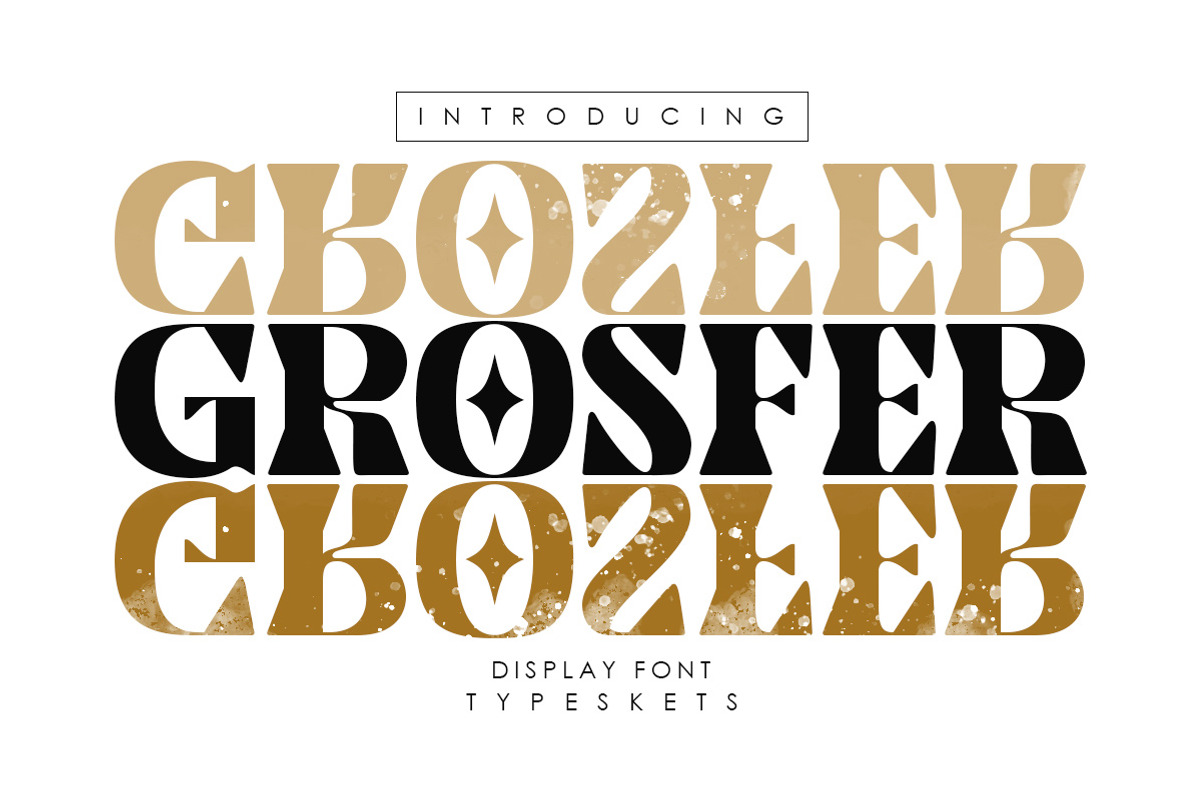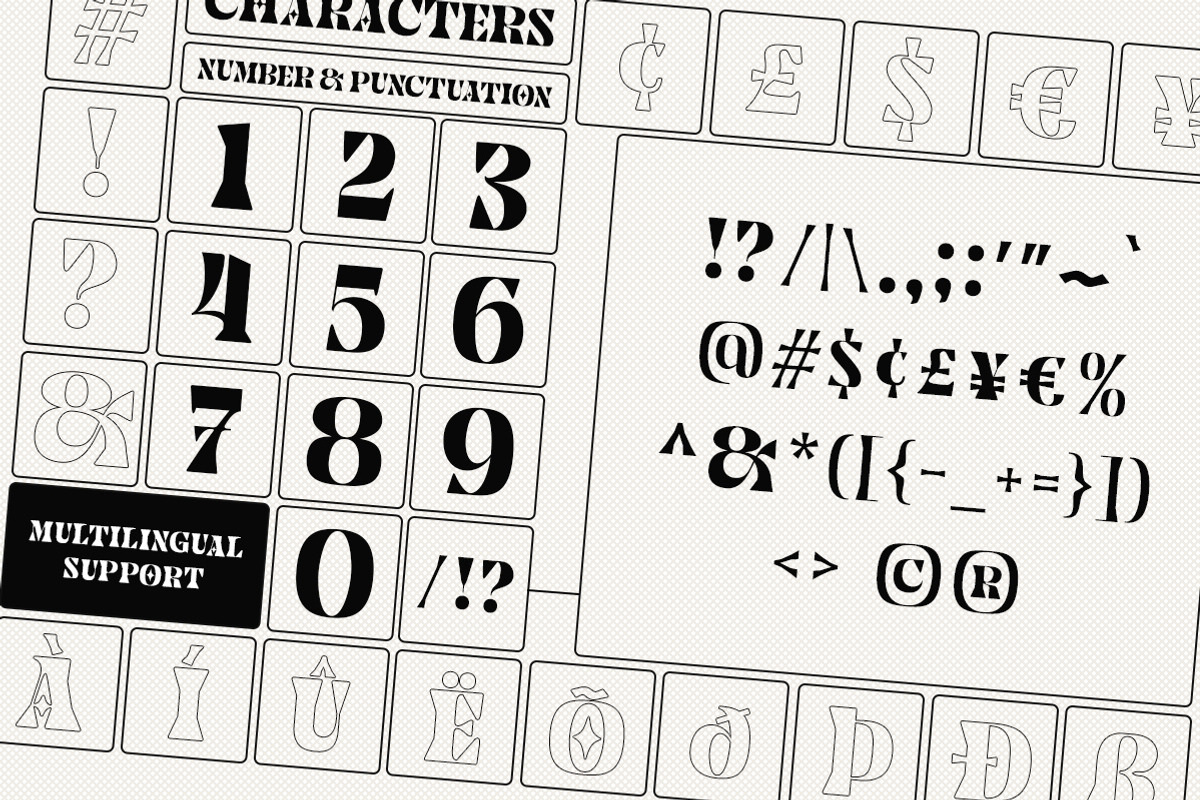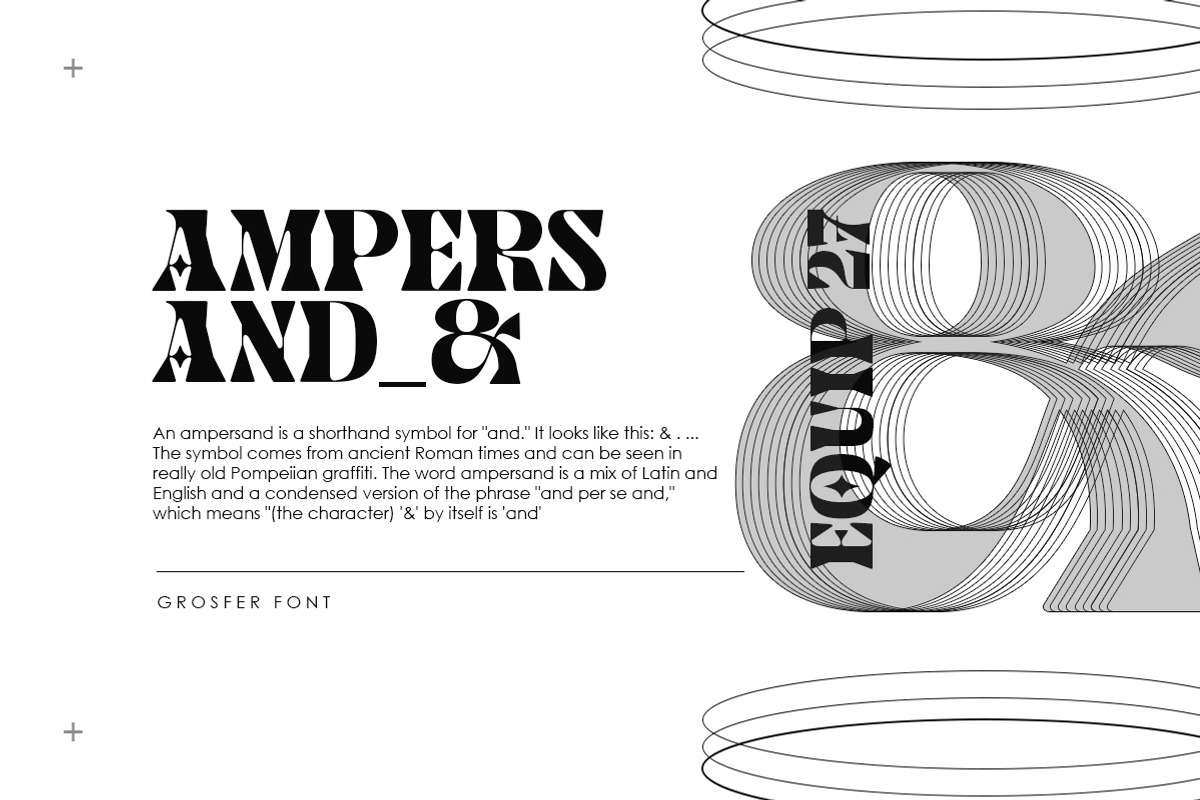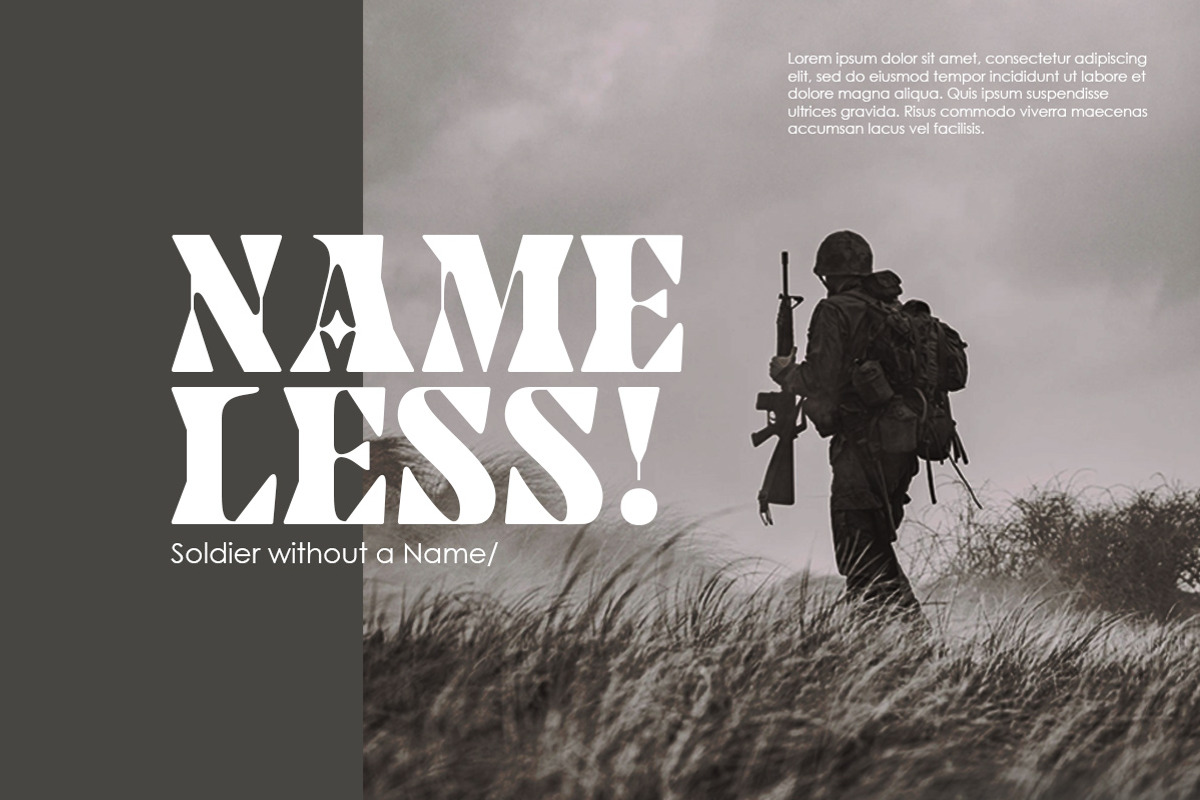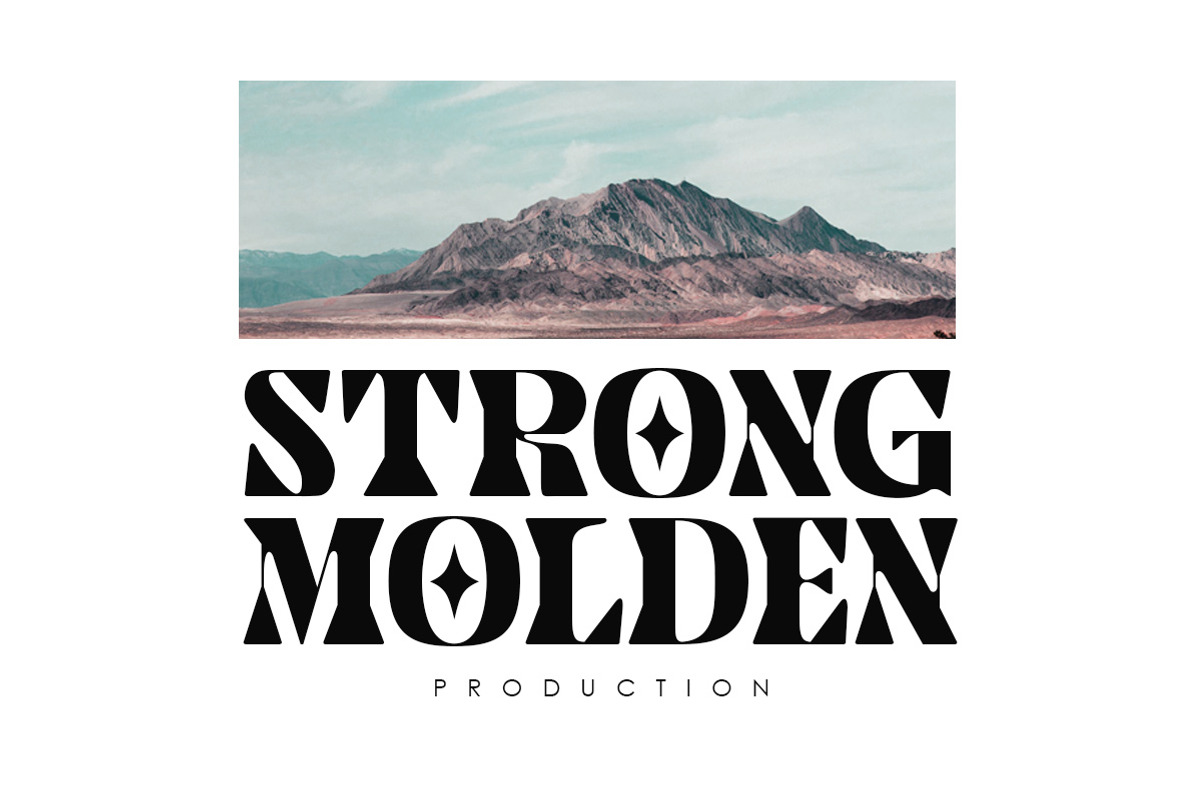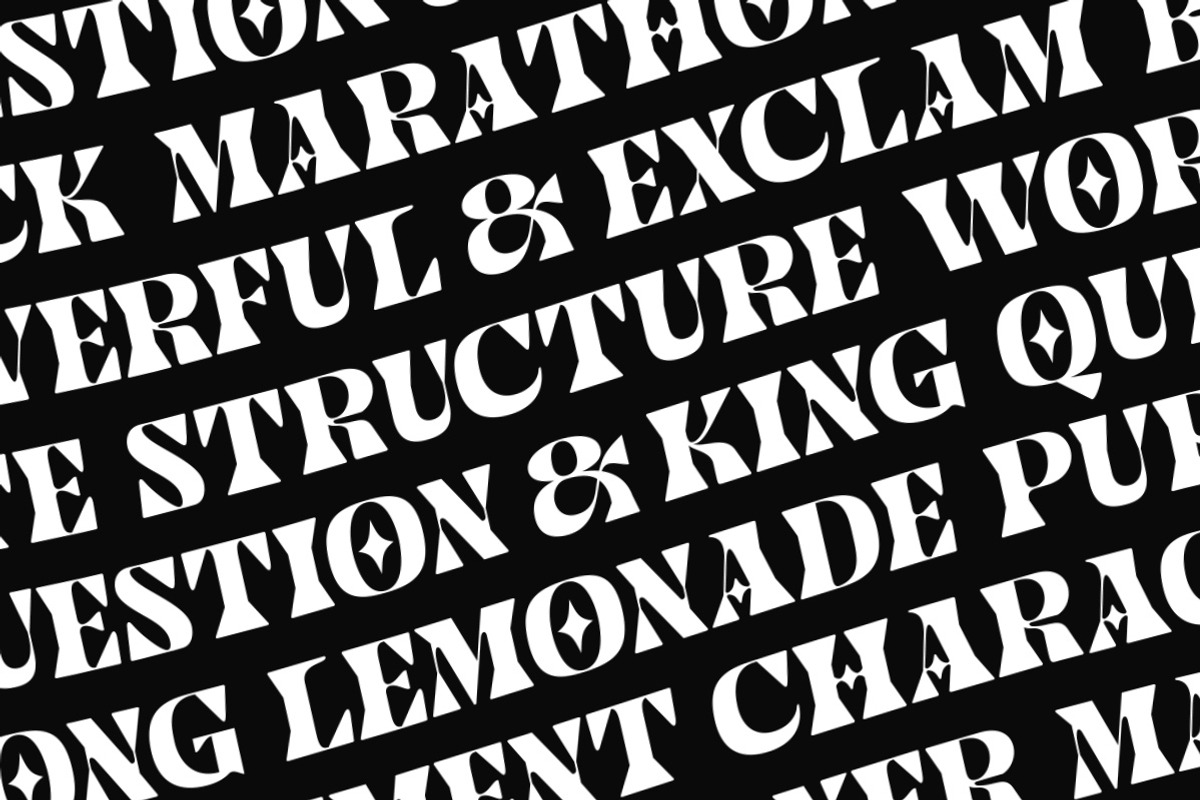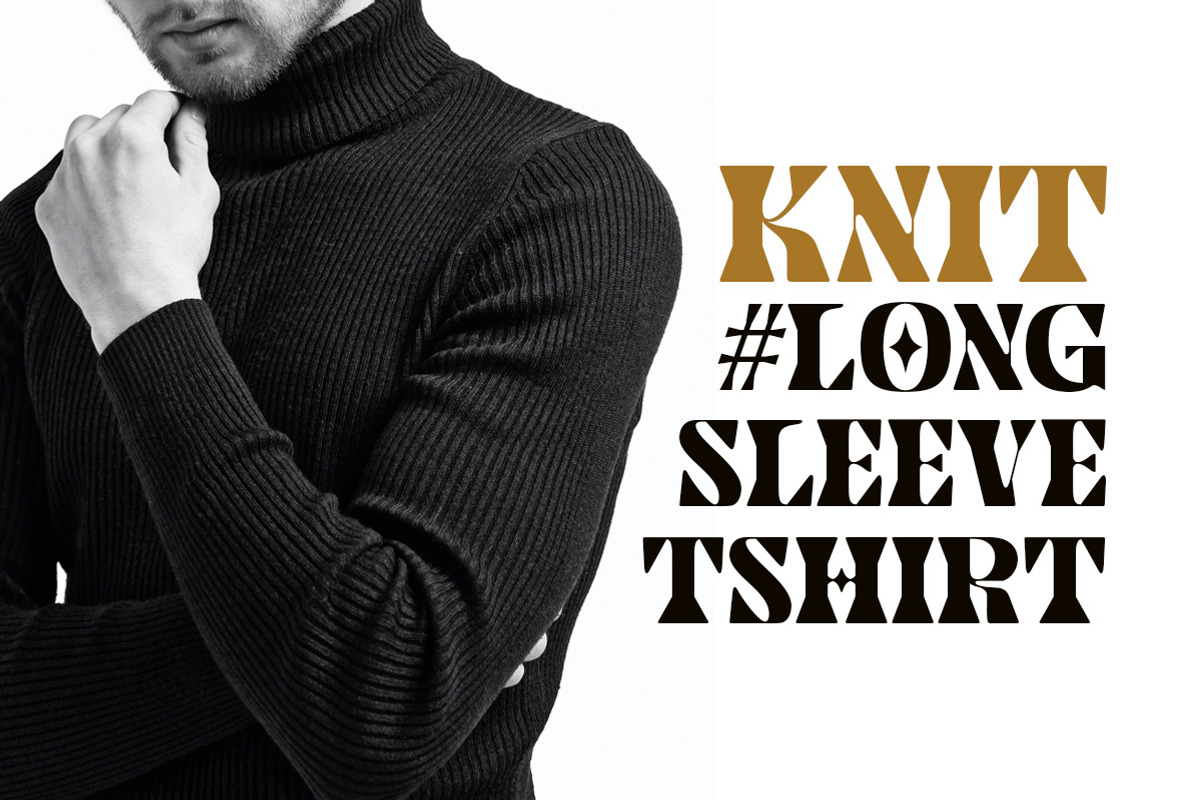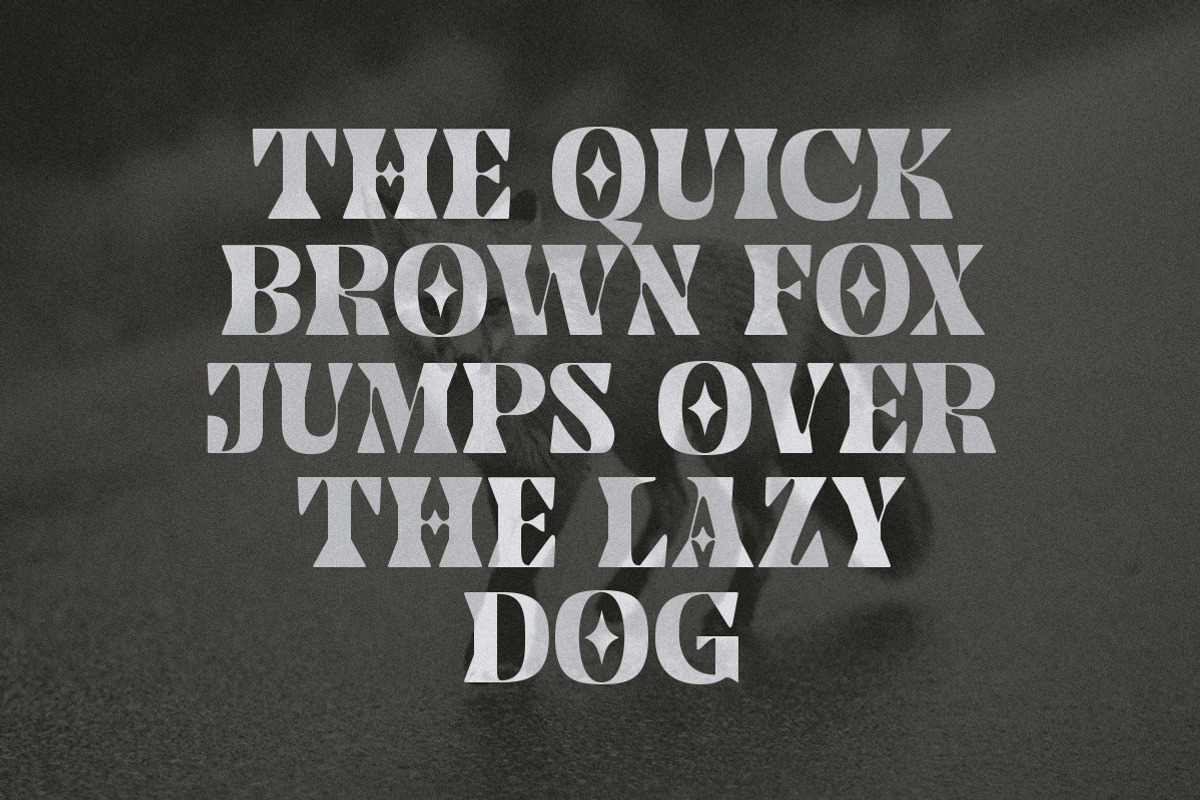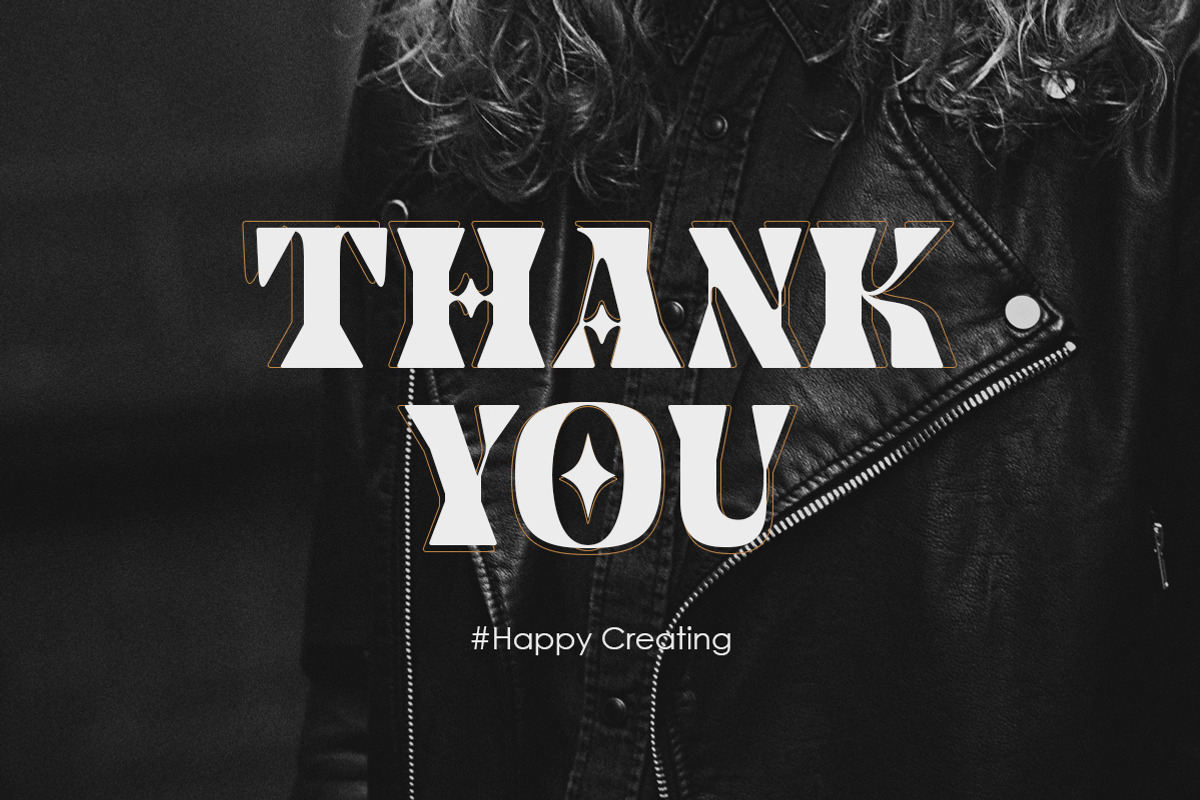
Grosfer - Display Font
Grosfer is a cool, bold and thick lettered display font. This font reads as strong, confident, and dynamic and can add a fierce character to your designs.
- Lettered
- Number & Punctuation
- Accents Characters